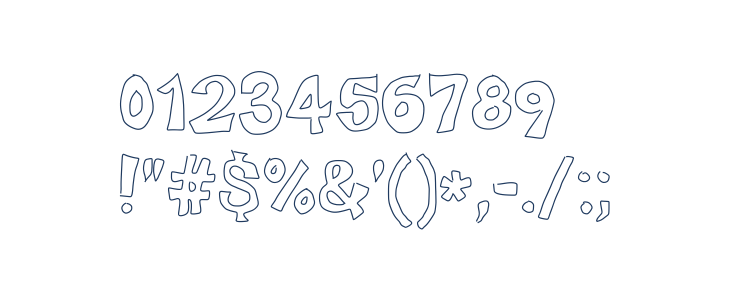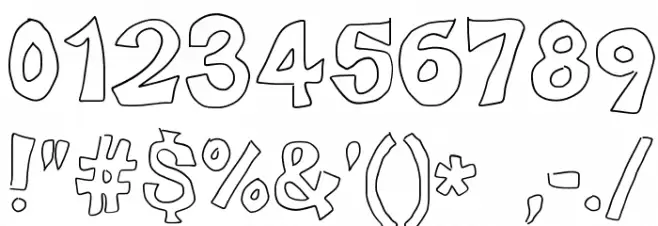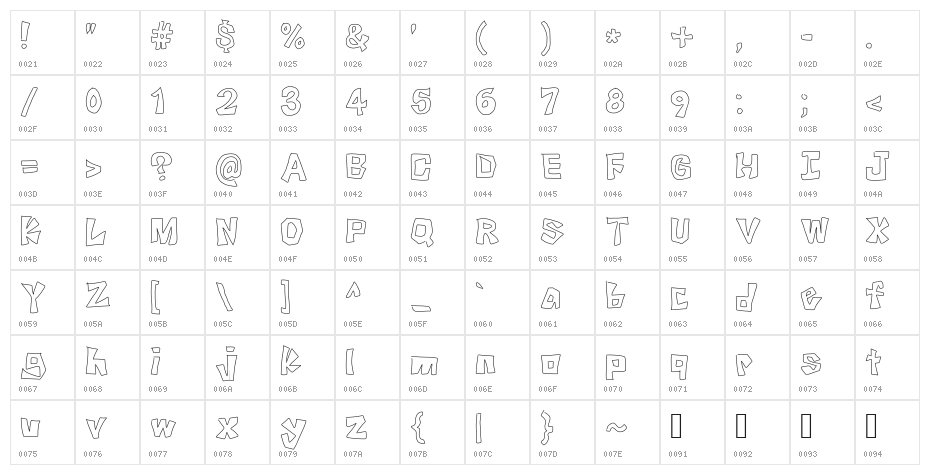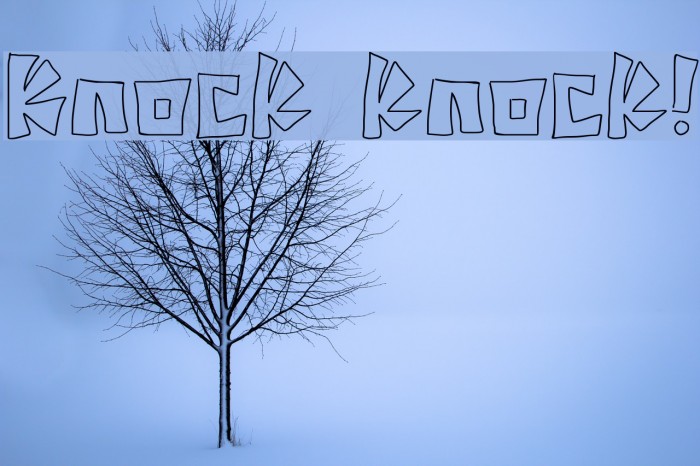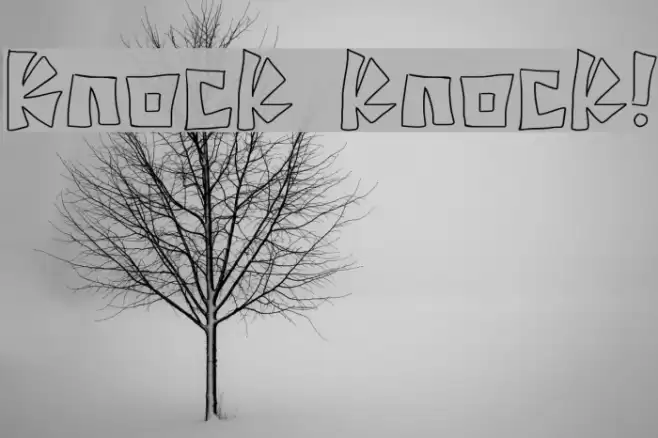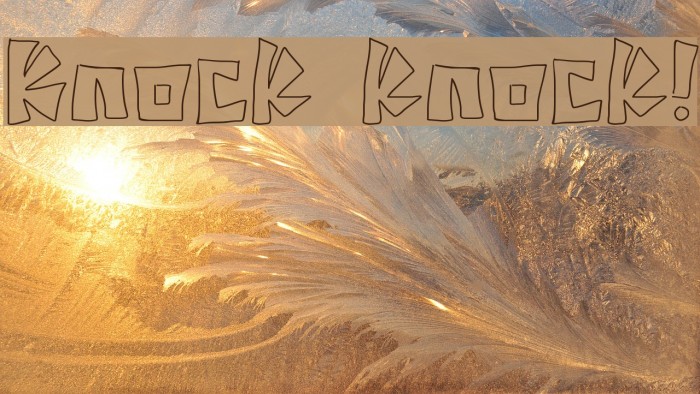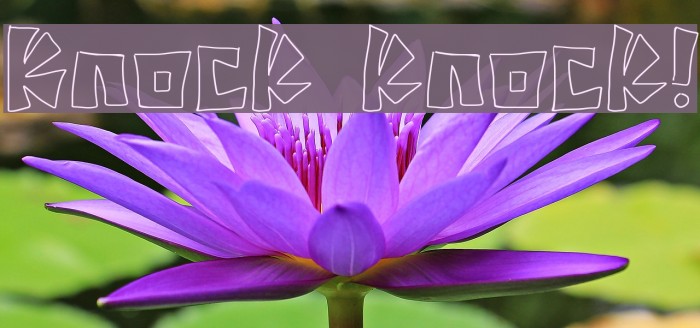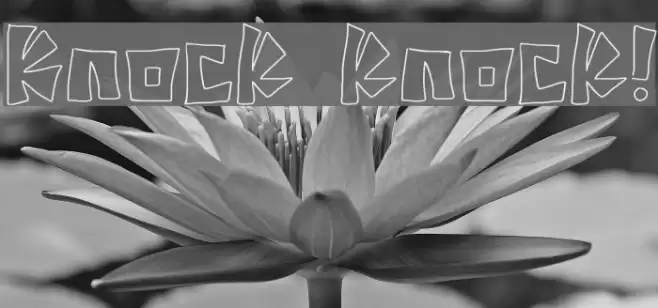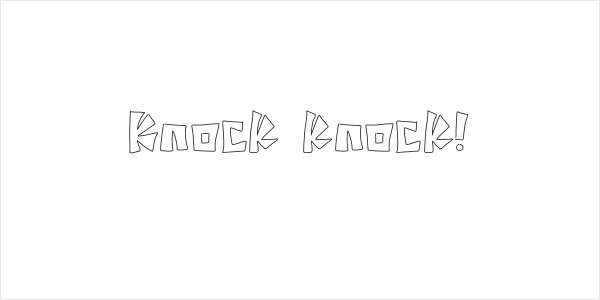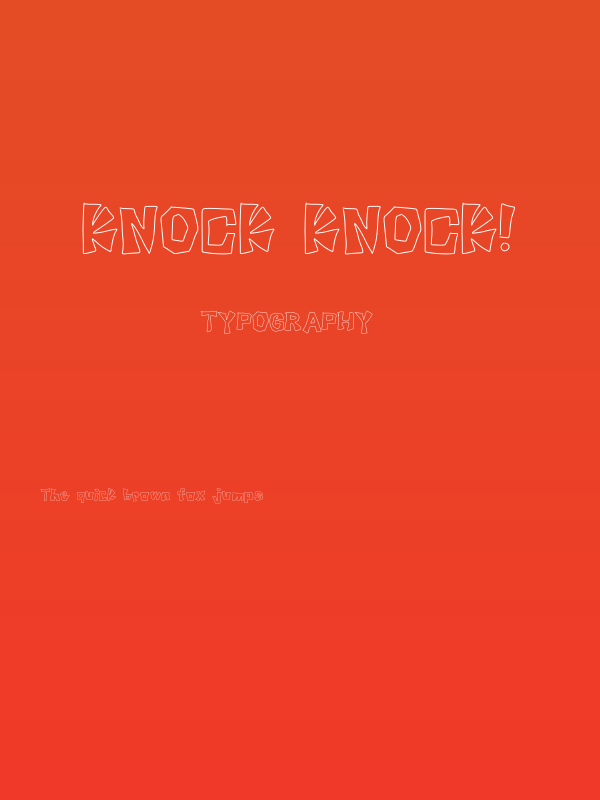
Knock knock! Font
Knock knock! Description
This font features a playful and quirky design with irregular, hand-drawn outlines that give it a casual and informal appearance. Each character has a unique, slightly distorted shape, adding to its whimsical charm. The uppercase and lowercase letters maintain a consistent style, with bold, uneven strokes that create a sense of movement and energy. The numbers and special characters follow the same playful theme, making the font suitable for creative and fun projects. Its distinctive style makes it stand out, perfect for capturing attention in a variety of contexts.
Overall StylePlayful, Quirky, Hand-drawn
Use CaseHeadlines, Posters, Creative projects
Proposed ProjectsIdeal for children's books, comic strips, playful branding, and creative posters.